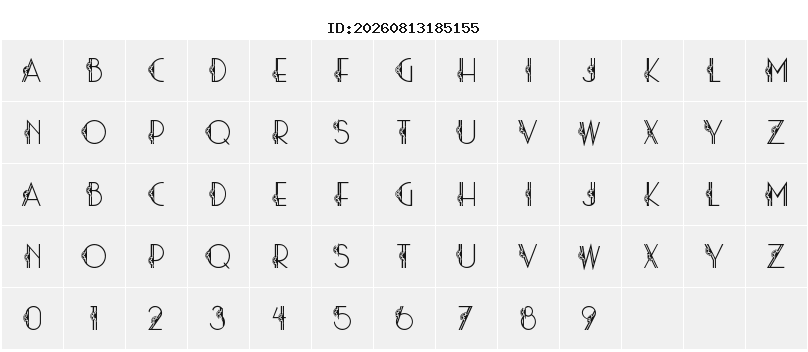
stardust06 Preview
• Font Name: stardust06
• Font ID: stardust06:Version 1.00
• Full Font Name: stardust06
• Version: Version 1.00 April 22, 2006, initial release
• PostScript Name: stardust06
About stardust06.ttf
stardust06.ttf is a modern, elegant sans-serif font designed for ultimate readability and visual harmony. Perfect for branding, headlines, web design, and print materials.